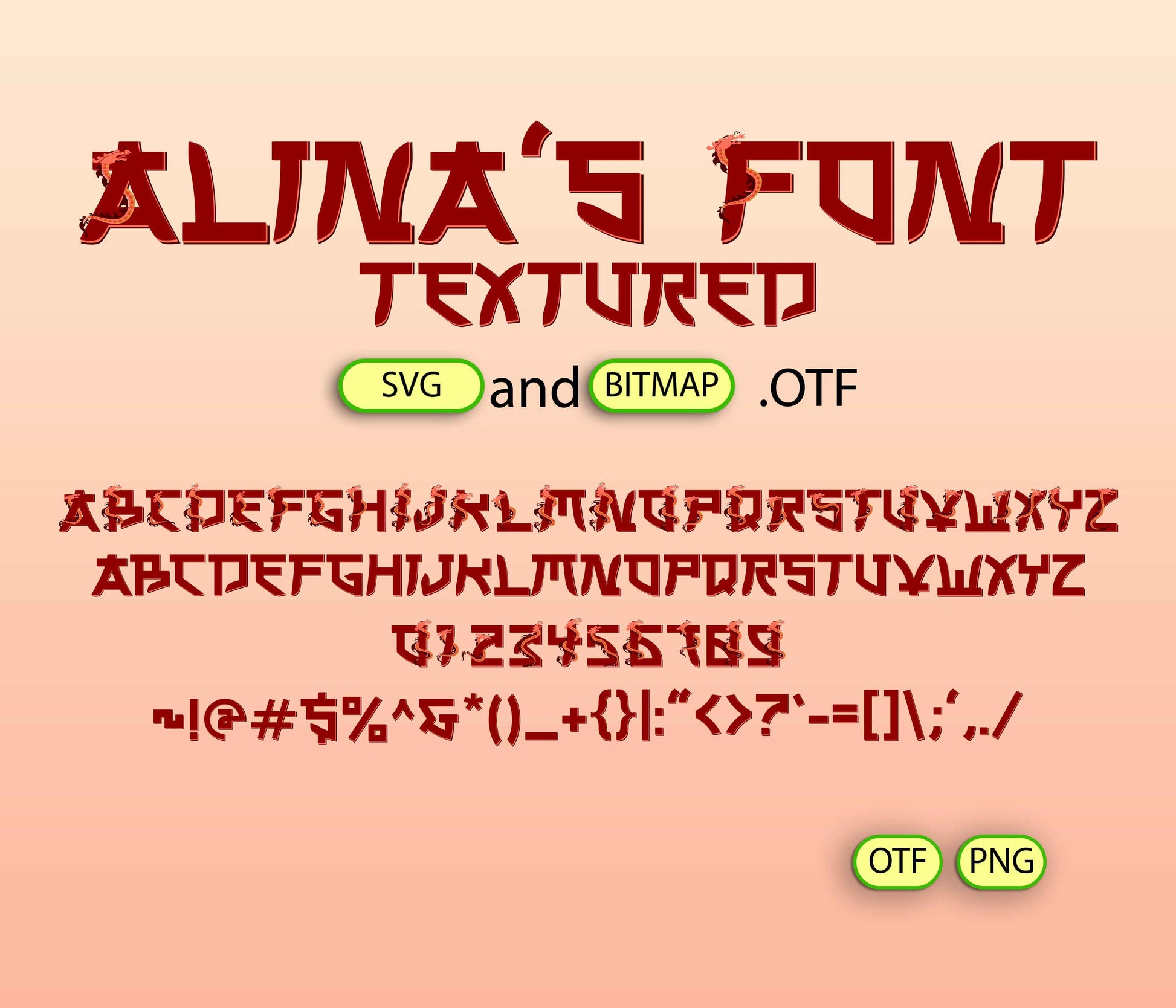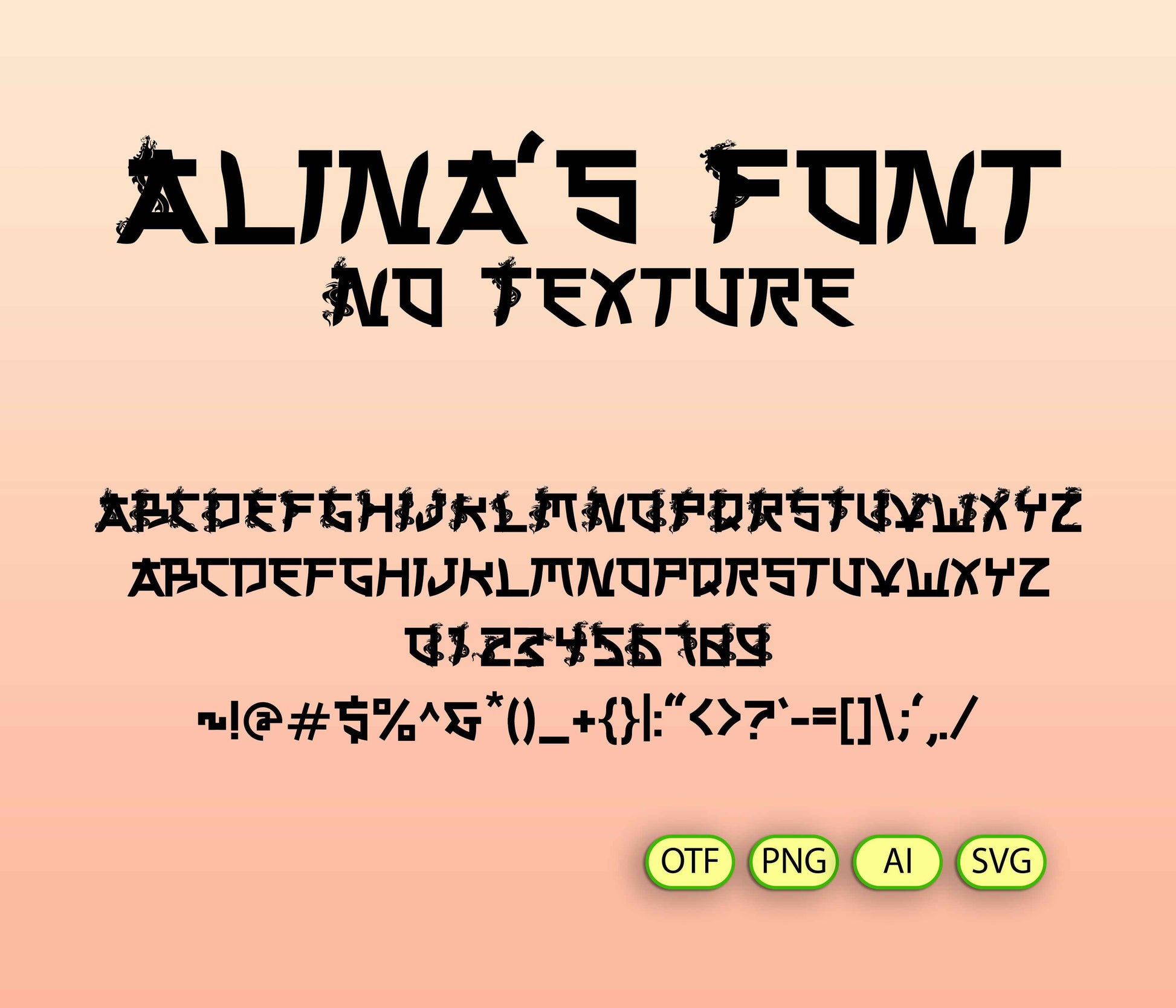
Chinese Dragon New Year Font Textured
Chinese Dragon New Year 2024 Textured Font
Celebrate the majestic power and cultural richness of the Chinese New Year with our Chinese Dragon New Year font, a vibrant and auspicious creation inspired by the legendary creature that symbolizes strength, luck, and wisdom in Chinese tradition. This font captures the essence of the Chinese New Year festivities, where dragons dance through the streets, bringing good fortune and banishing evil spirits. It's a tribute to the artistry and symbolism of one of the most important celebrations in the Chinese calendar, offering a touch of festivity and tradition to your projects.
What font is the Chinese Dragon New Year font?
You might ask. This font is a harmonious blend of traditional Chinese calligraphy and modern design elements, reflecting the dynamic and fluid movements of the dragon dance. The characters are crafted to echo the elegance and power of the Chinese dragon, with each stroke conveying the vibrancy and energy of New Year celebrations. Its extensive character set includes not only alphabets but also numbers and symbols, ensuring that you can convey messages of prosperity, happiness, and renewal in full spirit.
Application and Customization:
The Chinese Dragon New Year font is versatile, making it perfect for a wide range of applications that celebrate or are inspired by Chinese culture and festivities. Its potential for customization allows for diverse creative expressions:
- Event Invitations: Design stunning invitations for Chinese New Year celebrations or themed parties.
- Festive Decorations: Create banners, posters, and signs that add an authentic touch to New Year decorations.
- Greeting Cards: Craft heartfelt cards that convey wishes for prosperity, health, and happiness.
- Promotional Materials: Enhance marketing campaigns for events, sales, or product launches tied to the Chinese New Year.
- Social Media Content: Produce engaging graphics that celebrate the season and educate followers about its traditions.
- Menu Design: For restaurants offering special New Year dishes or themed dining experiences.
- Packaging Design: Create unique packaging for products launched during or inspired by the Chinese New Year.
- Apparel and Merchandise: Design T-shirts, bags, and accessories that feature auspicious symbols and greetings.
- Educational Materials: Develop resources that teach about Chinese New Year traditions, symbols, and meanings.
- Digital Art: Illustrate stories and artworks that capture the essence of the celebration and its legendary dragon.
- FREE No-Texture Version: A clean, polished variant of the font ensures compatibility with all types of software, including professional design tools and word processors.
The Chinese Dragon New Year font is more than just typography; it's a celebration of culture, tradition, and the hopeful beginnings that the New Year represents. Whether used for personal projects, community events, or commercial campaigns, this font adds a layer of authenticity and festivity, making every creation a meaningful tribute to the Chinese New Year. Let your designs come alive with the luck, joy, and prosperity that the dragon brings, and share the spirit of this vibrant celebration through your creative work.